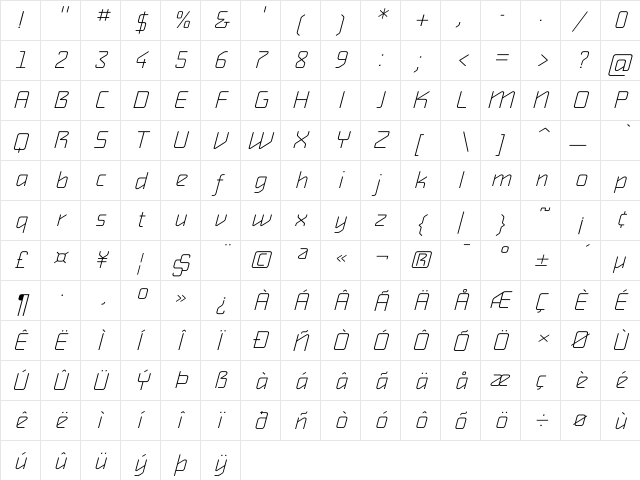
AlphavilleThin Oblique Font Preview
Design Context for AlphavilleThin Typeface
AlphavilleThin offers clean, dependable letterforms without strong stylistic allegiance, making it a practical choice for designers who need flexibility. The slanted form adds forward momentum and visual energy. The delicate stroke weight brings airiness and refinement to layouts.
Pro Tip: Try AlphavilleThin for annotation and caption copy alongside an upright companion — the contrast in angle creates a dynamic but ordered typographic system.